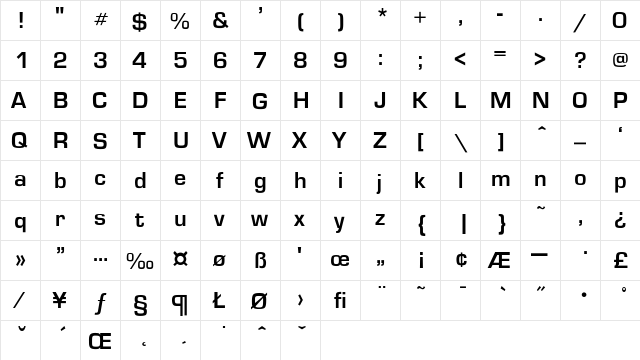
Eurostile-Bold Regular Font Preview
Eurostile-Bold Regular
Eurostile-Bold Regular Font Details
Design Context for Eurostile-Bold Typeface
Eurostile-Bold is a composed and adaptable typeface that performs quietly and consistently across a wide range of design contexts. The heavy weight commands attention and anchors typographic hierarchies.